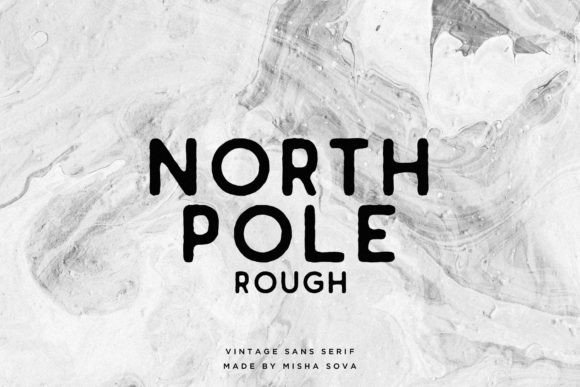
**North Pole Rough: The Font That Will Take Your Designs to the Next Level**
Prepare to embark on a typographic adventure with North Pole Rough, a captivating sans serif font that exudes vintage charm and undeniable uniqueness. Crafted by the ingenious Misha Sova, this font is meticulously designed to evoke a sense of nostalgia and exclusivity.
North Pole Rough masterfully blends the timeless elegance of classic sans serif fonts with a touch of rebellious individuality. Its meticulously crafted alternative letters add a dash of intrigue and character, transforming your designs into captivating masterpieces.
This versatile font is a perfect fit for a wide range of creative projects. Whether you're crafting eye-catching posters, designing impactful logos, or creating unforgettable t-shirts, North Pole Rough will effortlessly elevate your creations.
**Why Choose North Pole Rough?**
* **Vintage Charm with a Modern Twist:** North Pole Rough seamlessly merges the allure of the past with the freshness of the present, resulting in a font that's both timeless and utterly contemporary.
* **Unleash Your Creativity:** With its extensive character set and alternative letter options, North Pole Rough empowers you to unleash your boundless creativity, crafting designs that are as unique as your imagination.
* **A Font for All Occasions:** Whether you're seeking a bold statement for a poster, a captivating logo that leaves a lasting impression, or a touch of vintage flair for a t-shirt, North Pole Rough effortlessly adapts to your every need.
**Experience the North Pole Rough Difference**